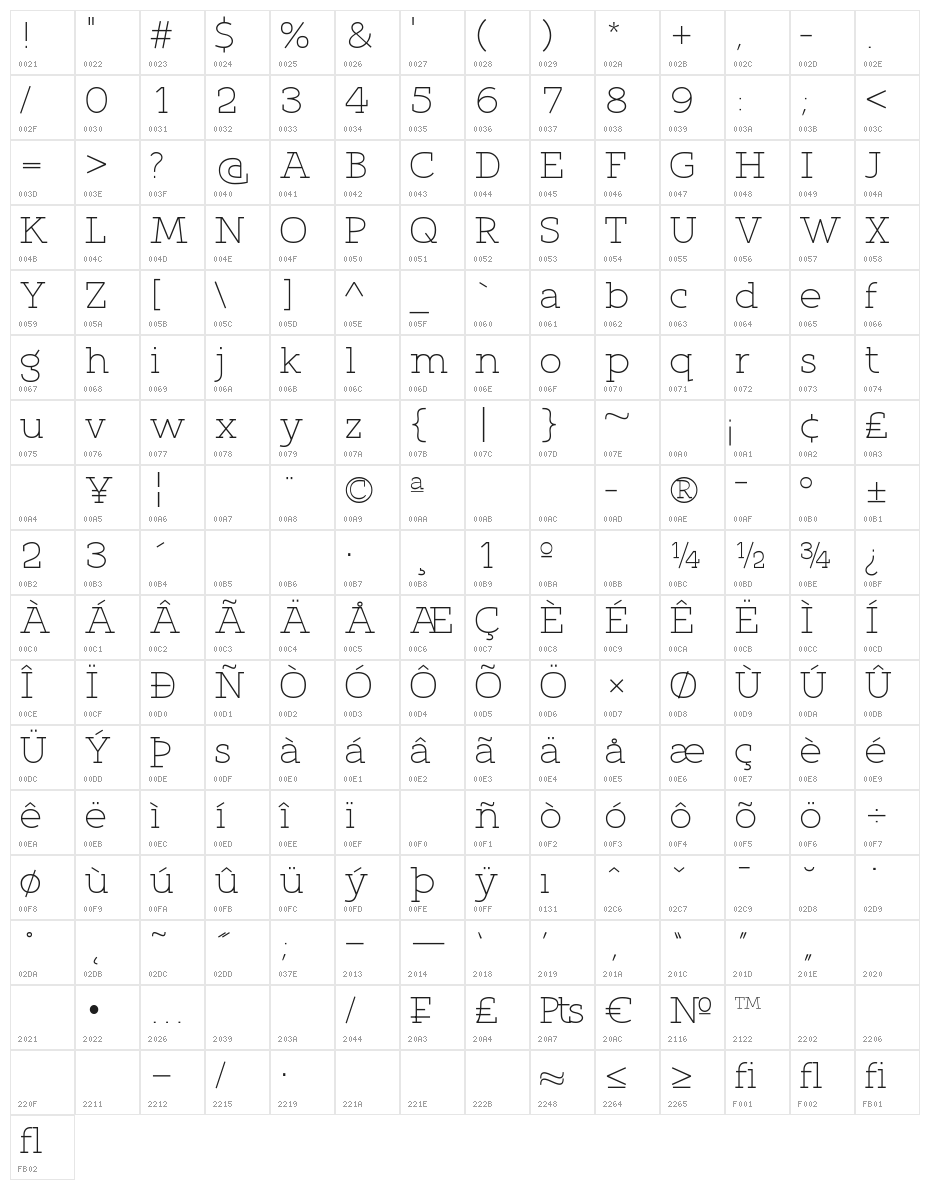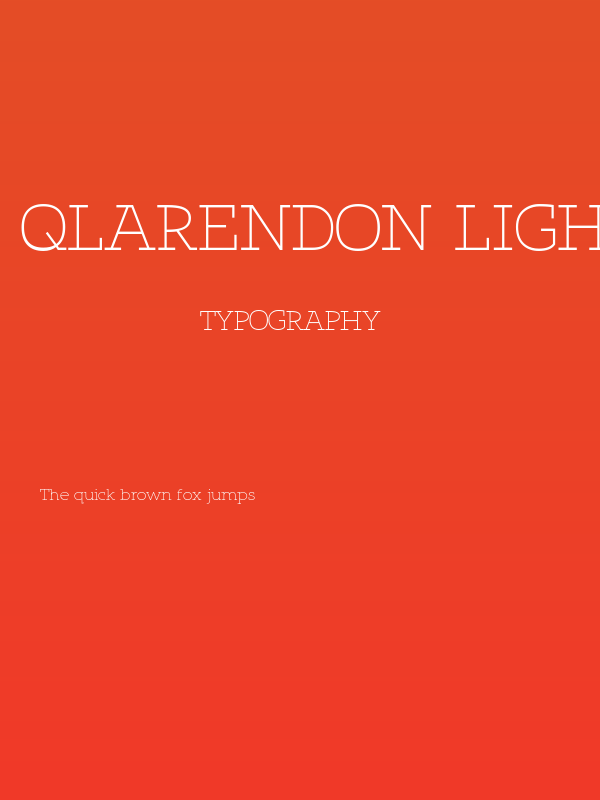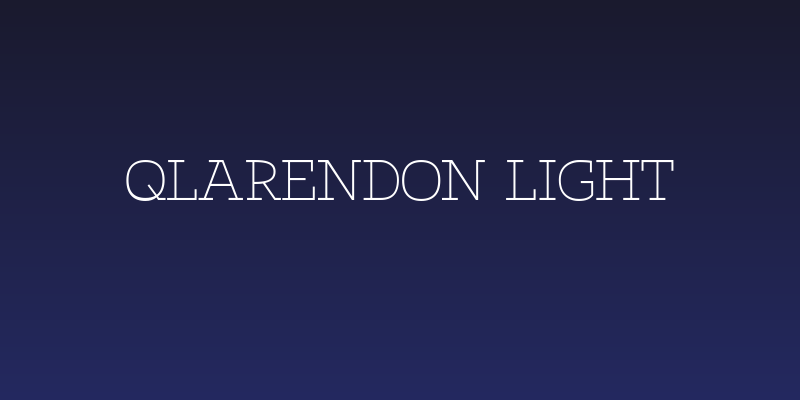
Qlarendon Light Font
Qlarendon Light Description
This font exhibits a clean and modern aesthetic with a touch of elegance. The characters are well-defined with a consistent stroke width, giving it a balanced and harmonious appearance. The uppercase letters are slightly taller than the lowercase, providing a subtle distinction that enhances readability. The numerals are clear and straightforward, making them suitable for various applications. Special characters are designed with the same attention to detail, ensuring they blend seamlessly with the rest of the typeface. The overall design is versatile, making it suitable for both digital and print media.
Proposed ProjectsIdeal for branding, editorial design, websites, and corporate materials.